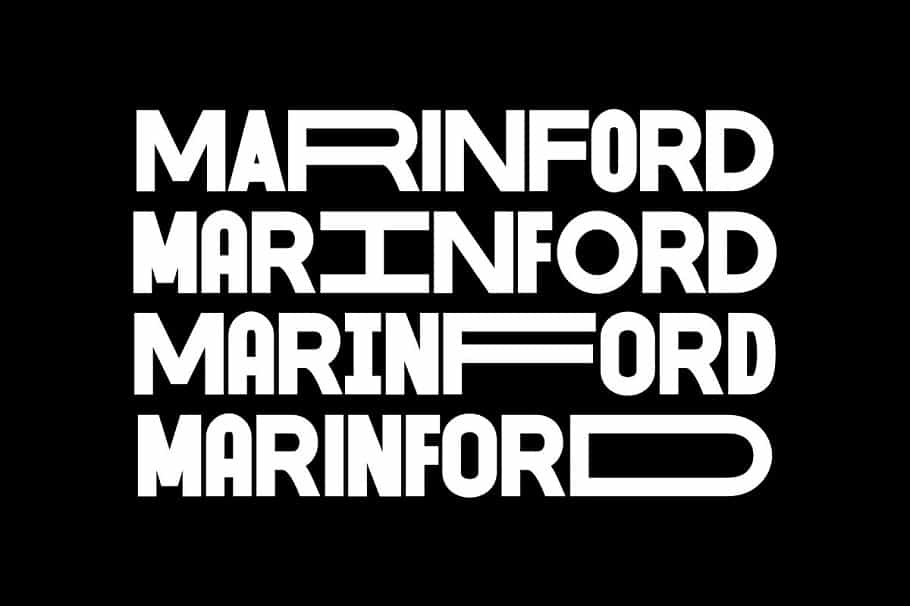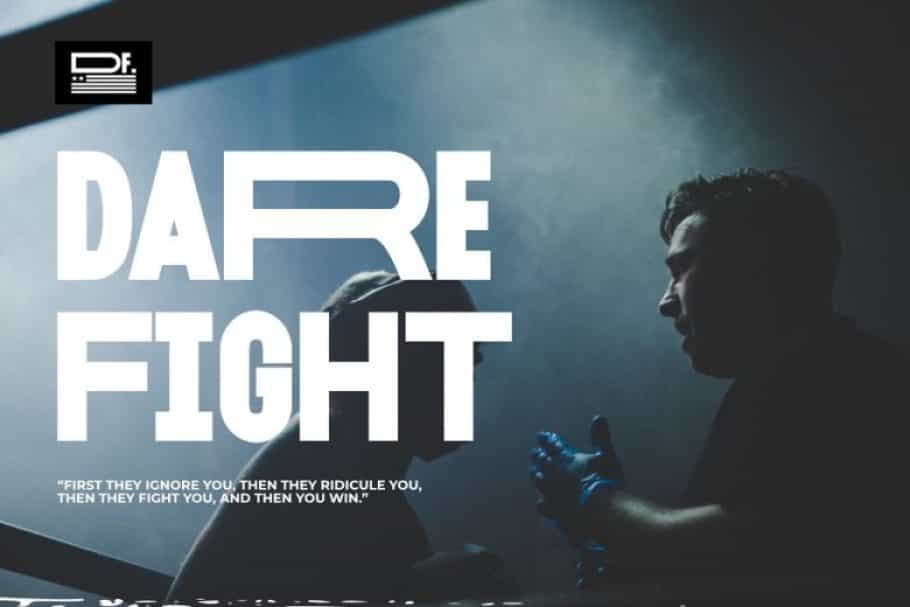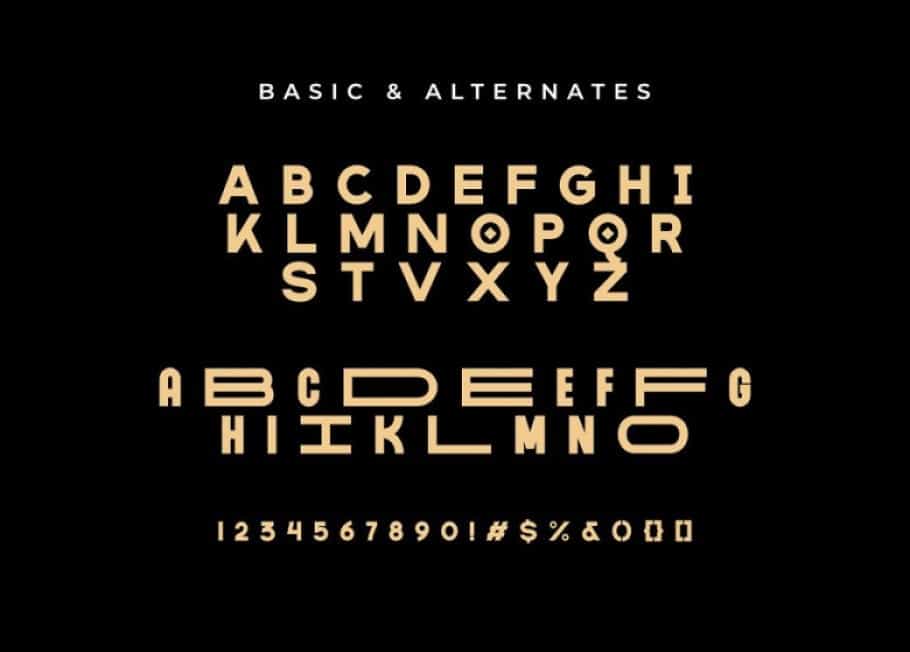
Marinford has a beautiful new typeface! The font has been specially designed to appeal to those who want a hint of class to create your designs then with flawless results and stunning. Marinford Very stunning and fascinating sans serif font that has a great line to use for a variety of reasons.